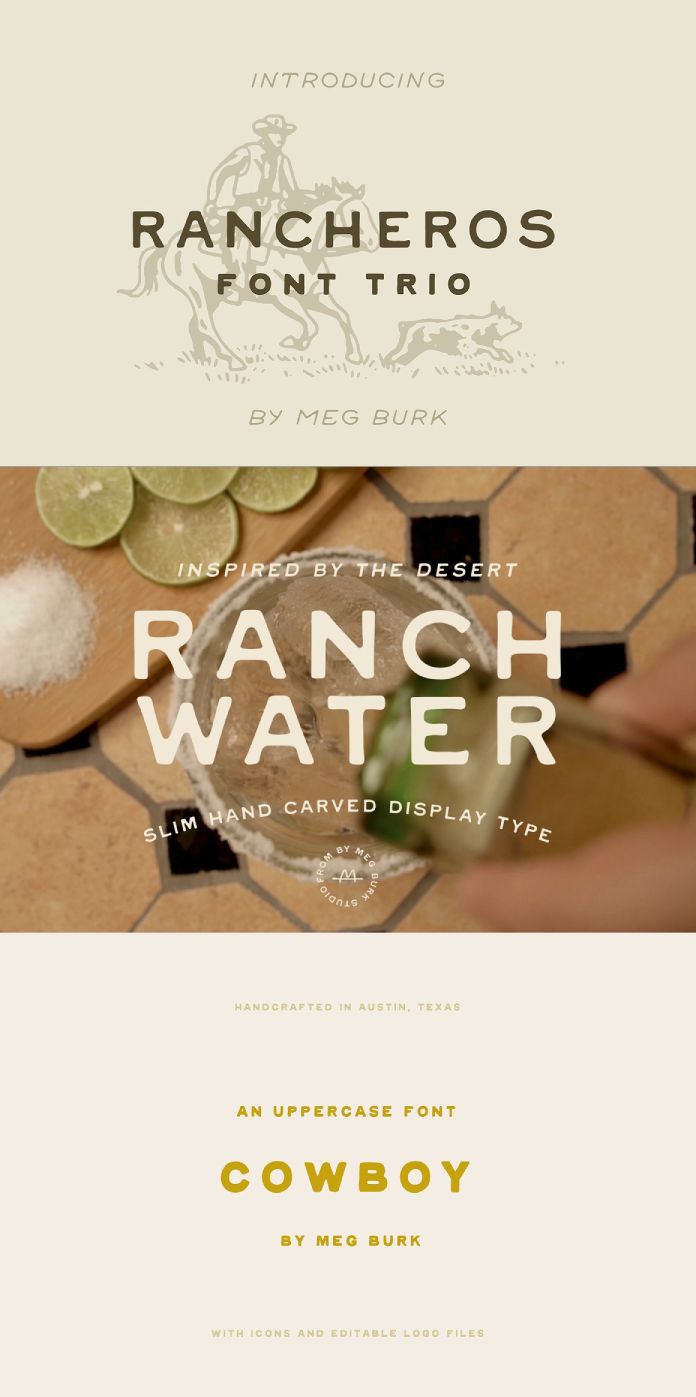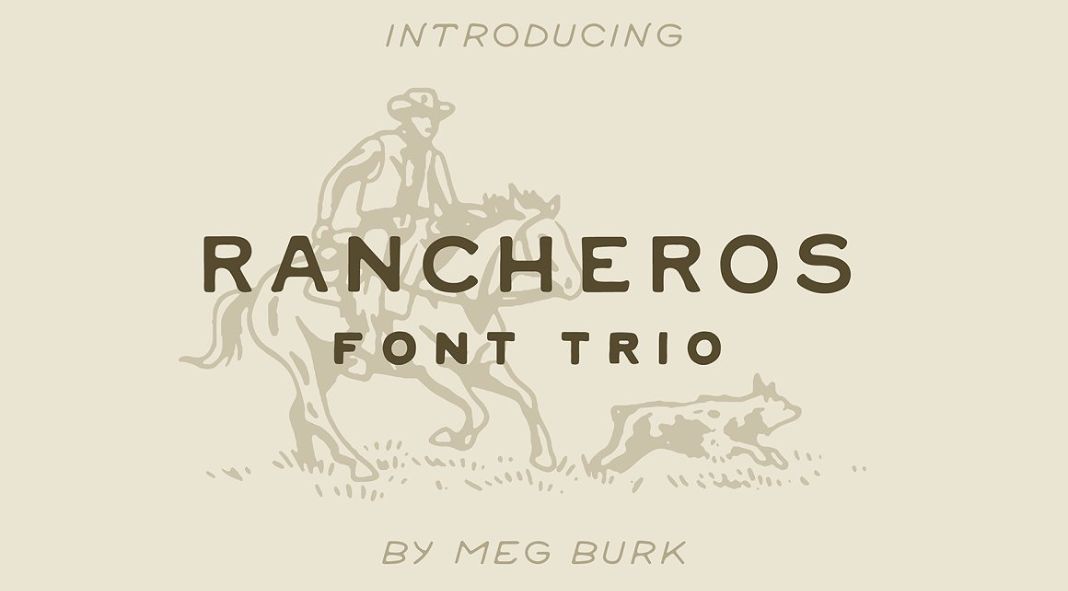
Rancheros: A Handmade Western-Inspired Font Trio.
When it comes to Western-inspired designs, nothing captures the essence of the Wild West better than Rancheros, a font trio created by the talented designer Meg Burk. Today, we’ll explore the features and characteristics of Rancheros, delving into why it has become a go-to choice for designers seeking to infuse their projects with a touch of the rugged frontier.
- A Trip to the Old West: Rancheros is a meticulously crafted font trio that pays homage to the iconic aesthetics of the Old West. Meg Burk has masterfully captured the spirit of the Wild West, ensuring that each font carries the charm and authenticity of this beloved theme. The typefaces in the Rancheros font trio are versatile, allowing designers to create diverse designs that range from rustic and vintage to modern and bold.
- Versatility and Applications: Rancheros is not limited to a specific design style; it offers a range of applications for various design projects. Whether you are creating a Wild West-themed poster, a rustic wedding invitation, or a vintage-inspired logo for a cowboy-themed brand, Rancheros provides the flexibility to adapt to different design needs. The font trio can seamlessly blend with other design elements, such as illustrations, textures, or photographs, to create an immersive visual experience.
- Attention to Detail: One of the notable strengths of Rancheros lies in the attention to detail that Meg Burk has invested in its creation. Every curve and stroke has been carefully designed to ensure consistency and authenticity. The result is a set of typefaces that not only captures the essence of the Western genre but also delivers a polished and professional finish to any design project.
Rancheros, the Western-inspired font trio created by Meg Burk, opens up a world of design possibilities for anyone seeking to infuse their projects with the spirit of the Wild West. With its versatile range of typefaces, authenticity, and attention to detail, Rancheros has become a popular choice among designers looking to evoke a sense of rugged adventure and nostalgia. Whether it’s for a poster, logo, or any Western-themed project, Rancheros brings the charm of the Old West to life in a captivating and visually appealing manner.